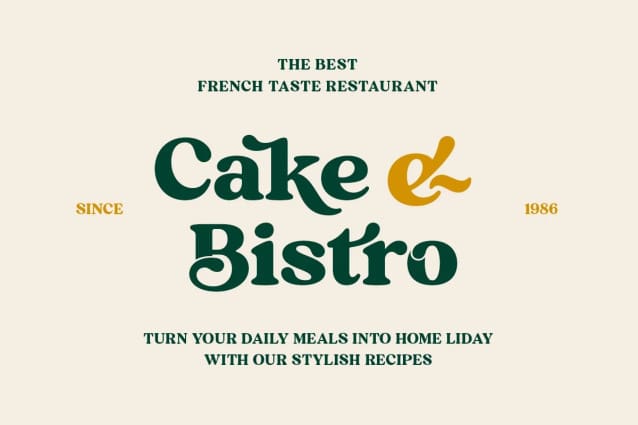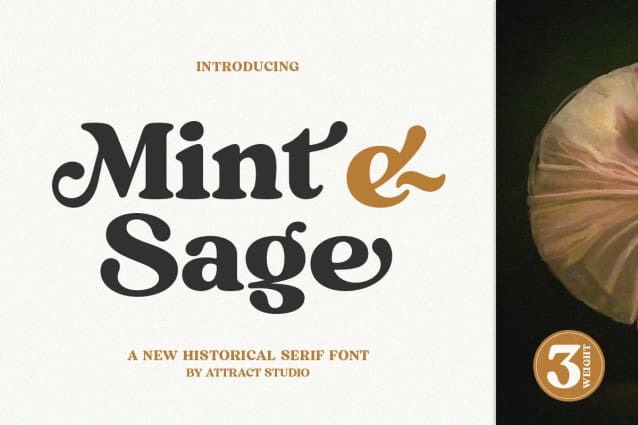
Mint And Sage Font
Mint And Sage Font is a nostalgic typeface modernized from the old style serifs of the sixties and seventies. With soft serifs suitable for many projects: invitations, postcards, posters, books, advertisements, websites, blog headers, logos, branding, magazines, fashion, photography, editorial design and many others.